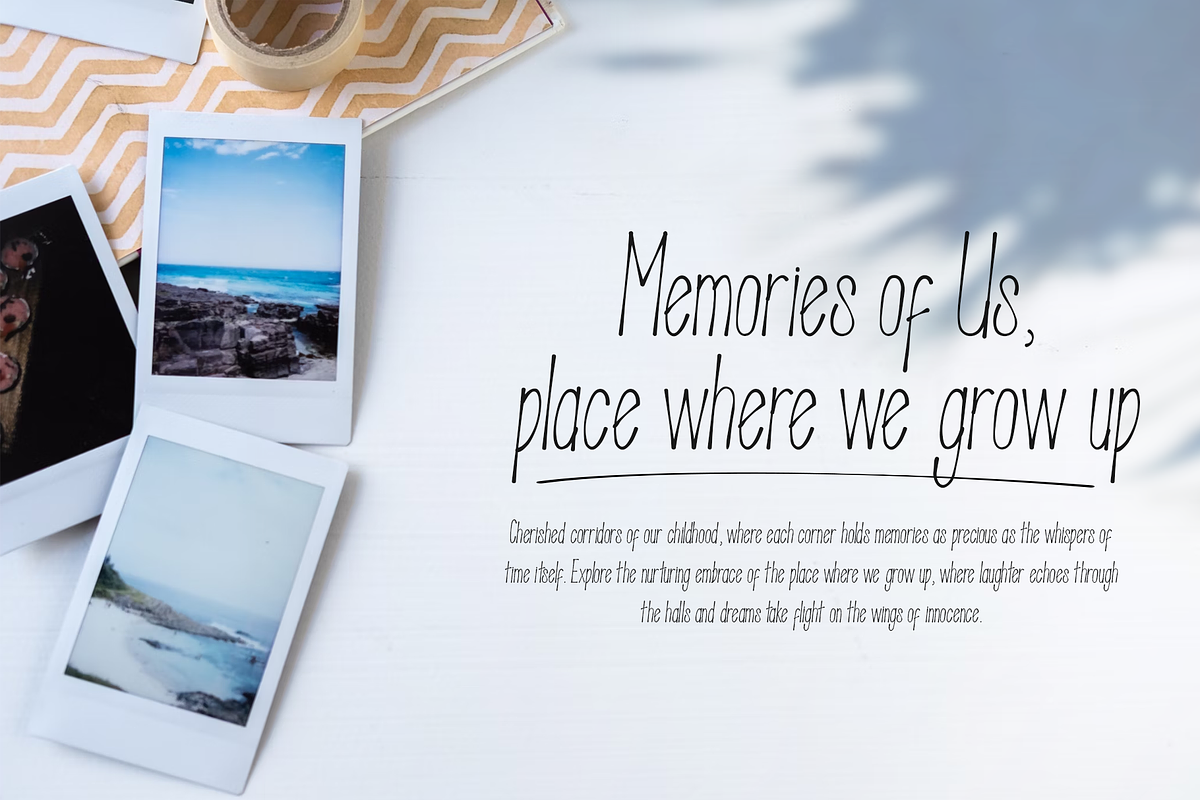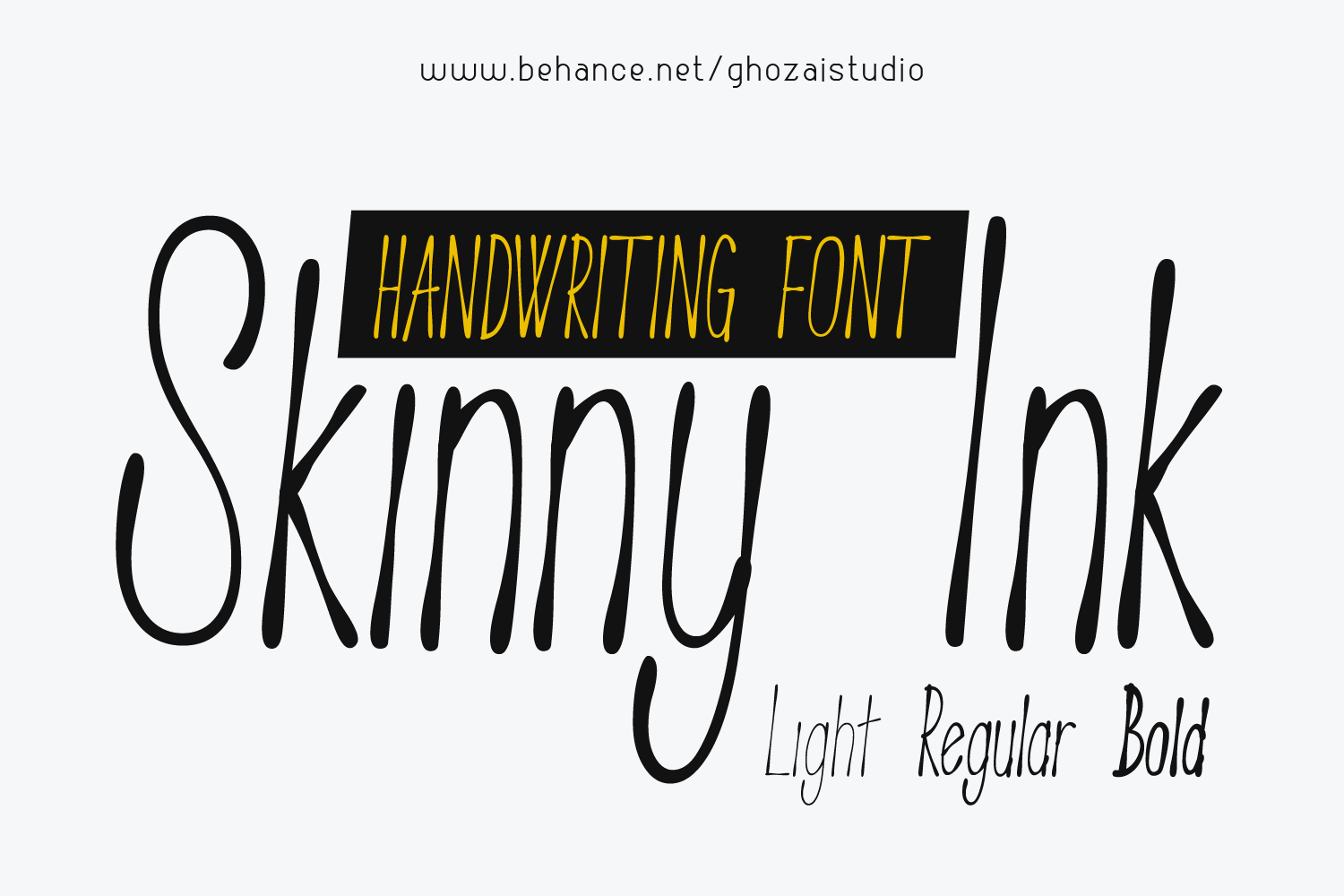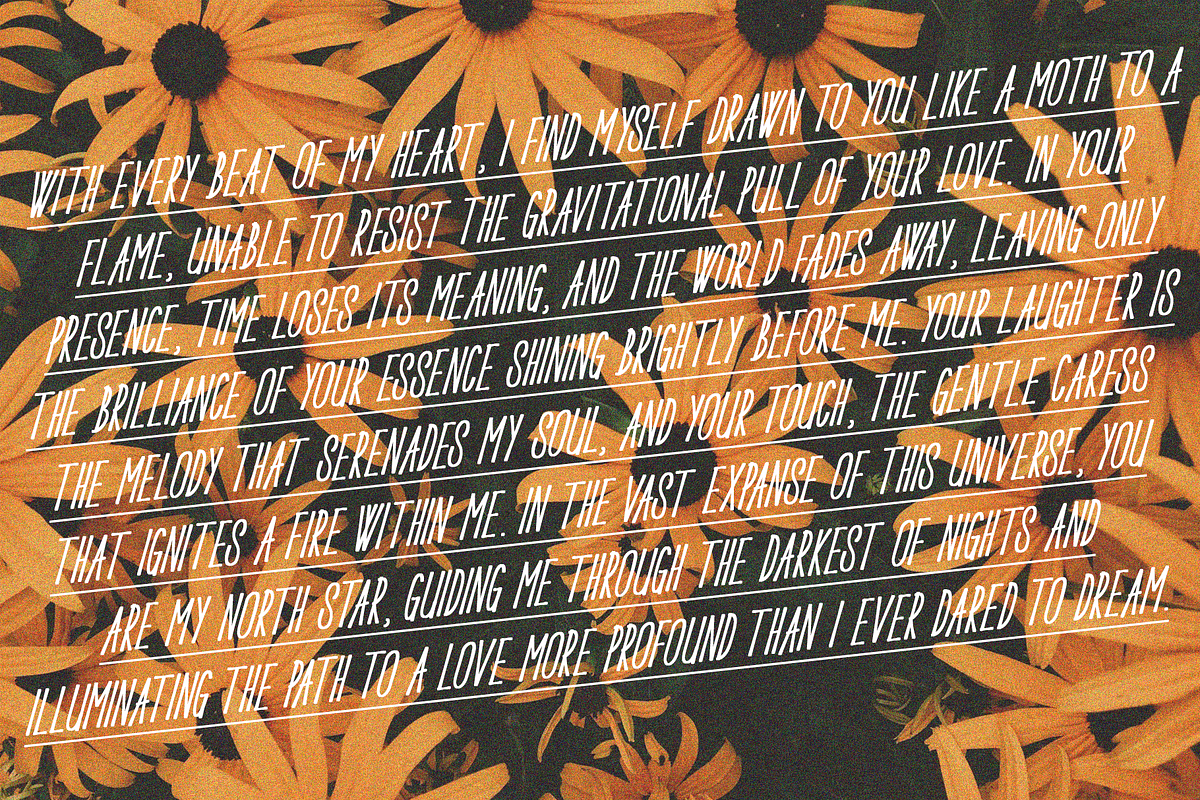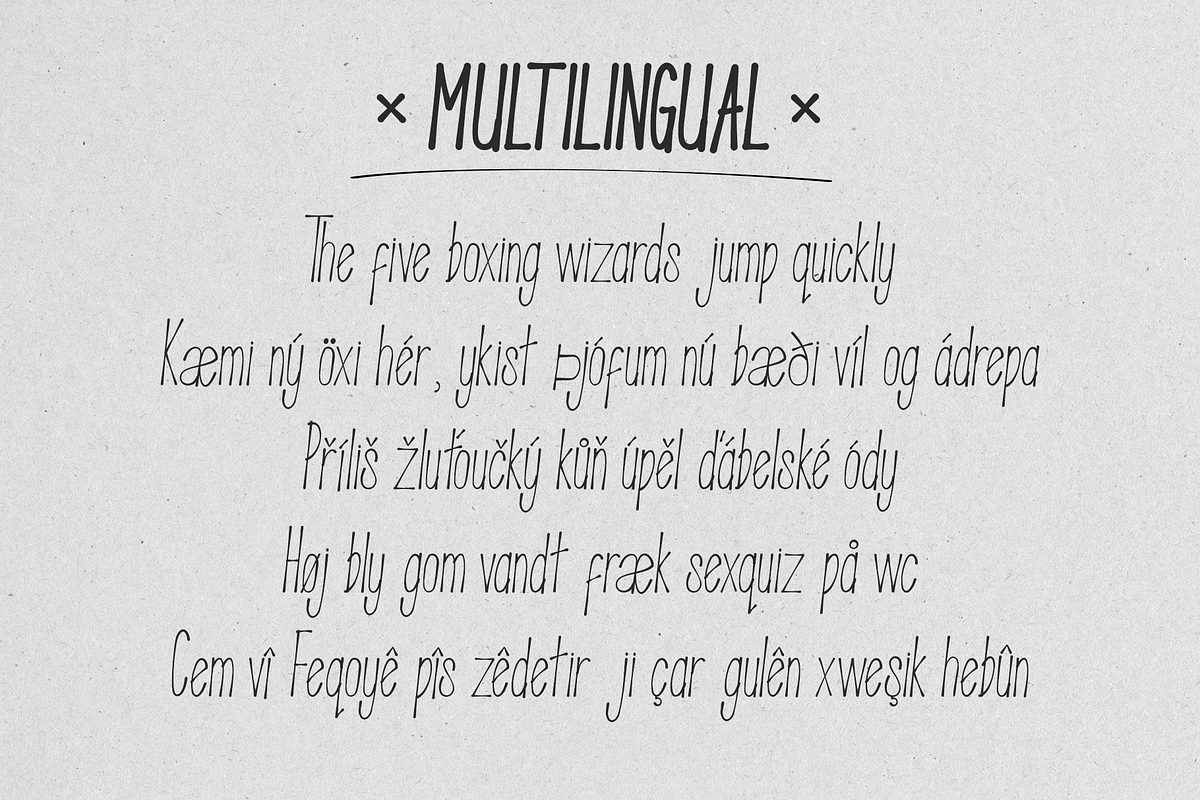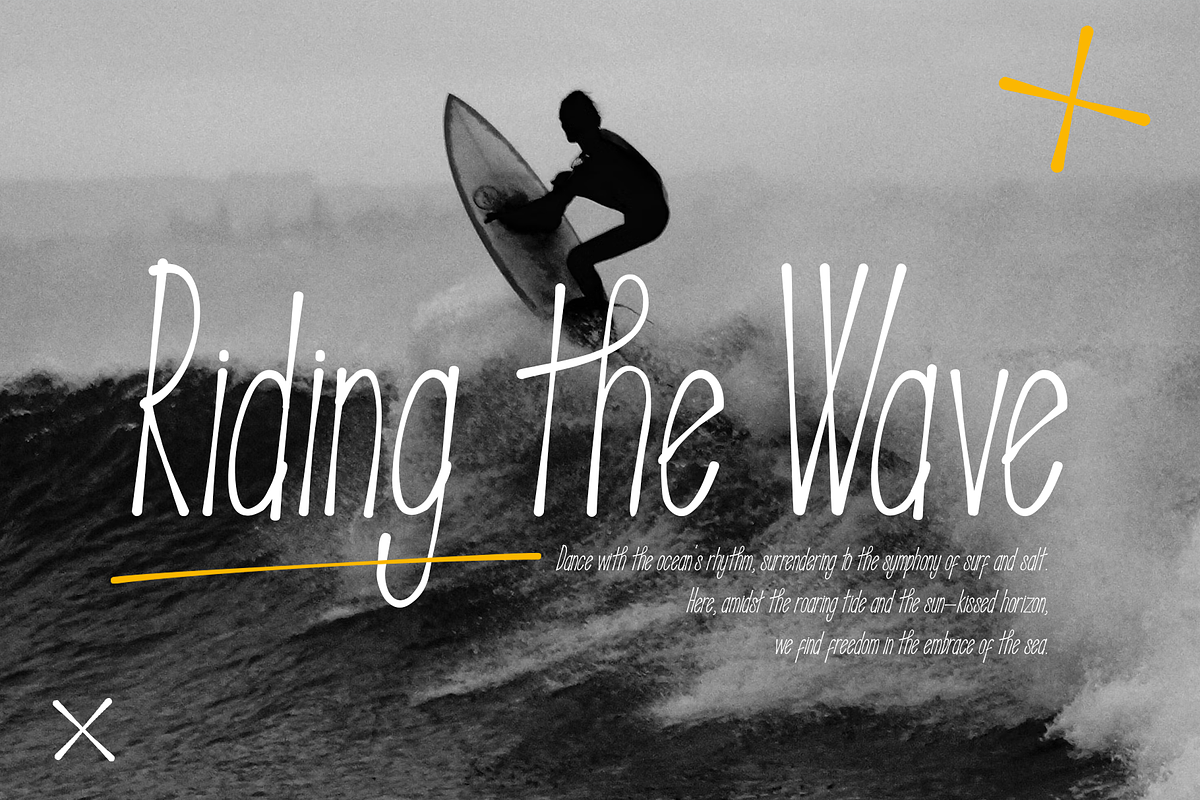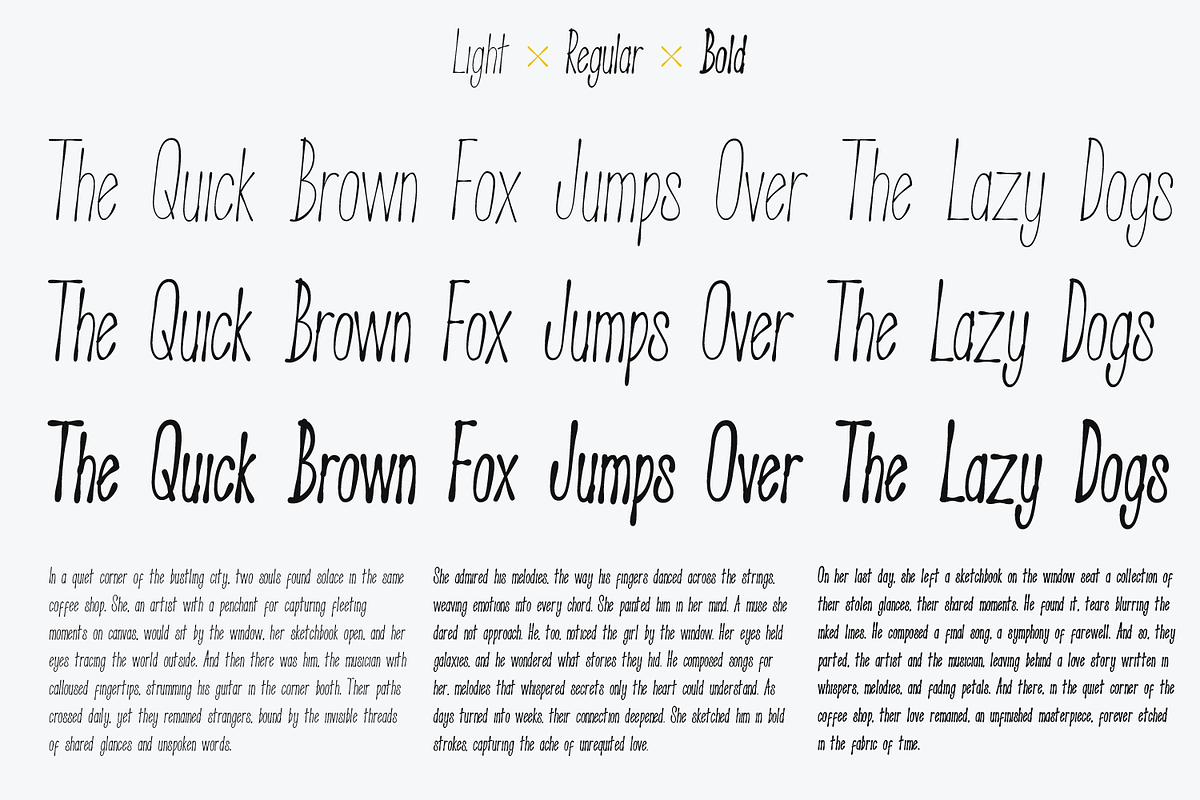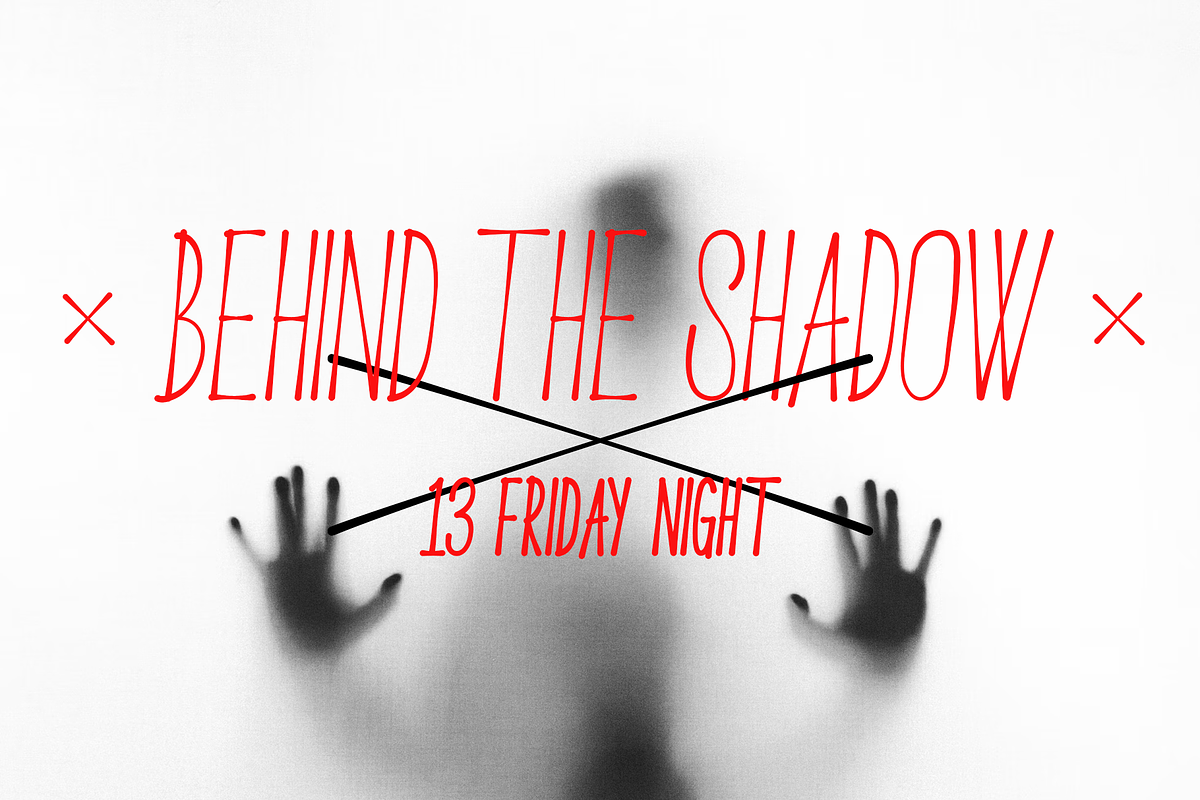
Skinny Ink - handwriting font
Skinny Ink is designed to emulate natural ink handwriting with each character meticulously designed to embody the fluidity and grace of ink on parchment, this font breathes life into your words, transforming mere text into captivating narratives. Designed for those who appreciate the artistry of language, this font captures the essence of handwritten elegance while offering the versatility of digital precision.
Available in 3 styles, light, regular, and bold.